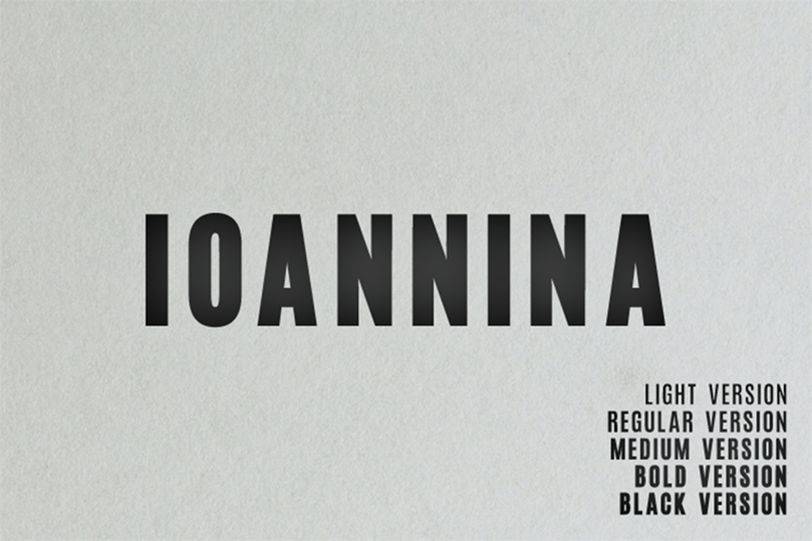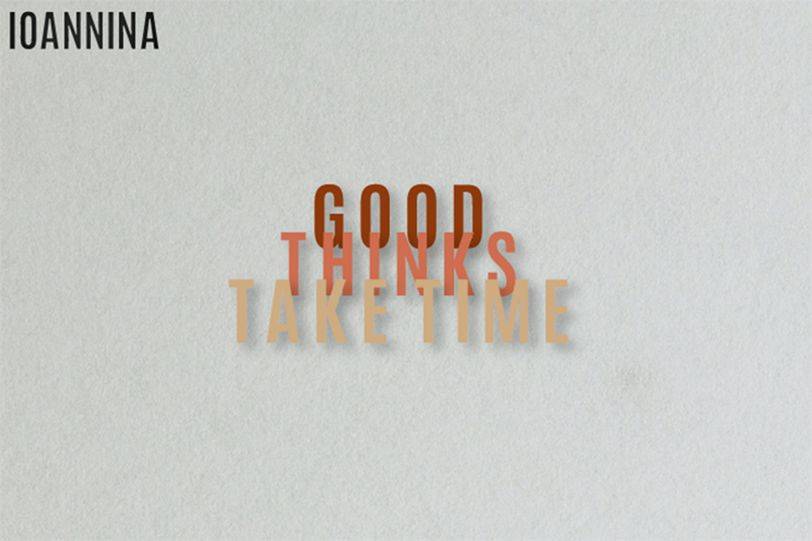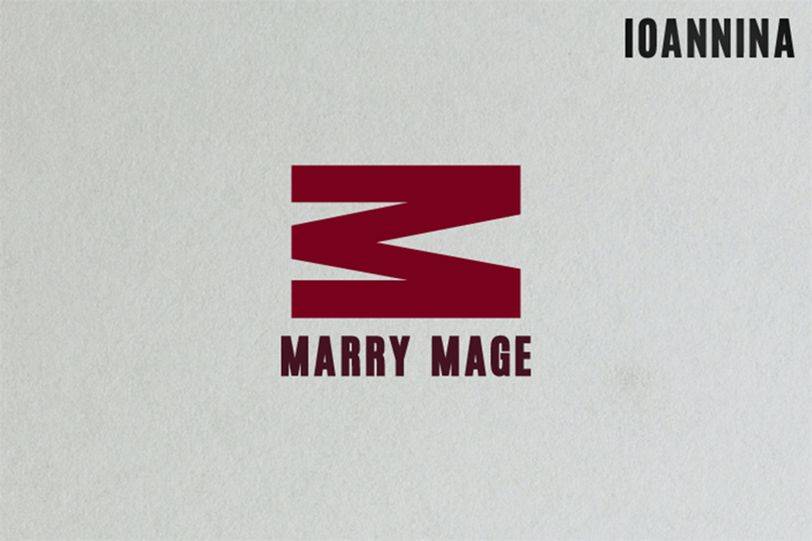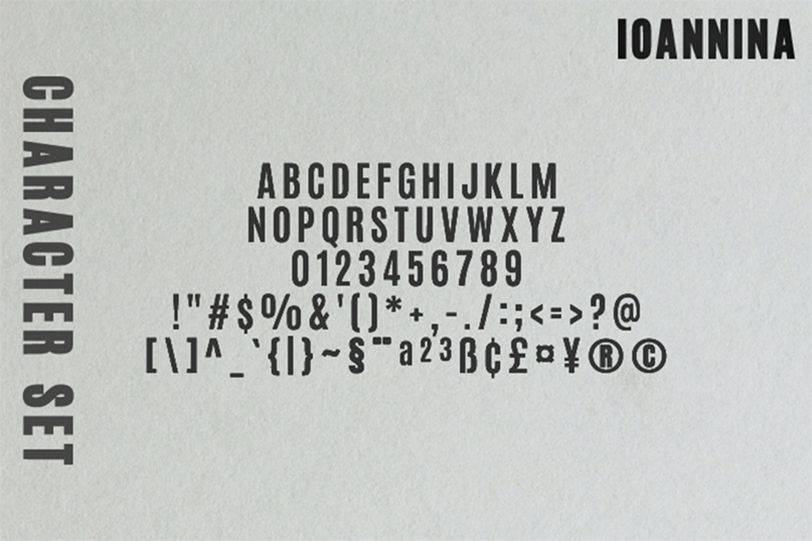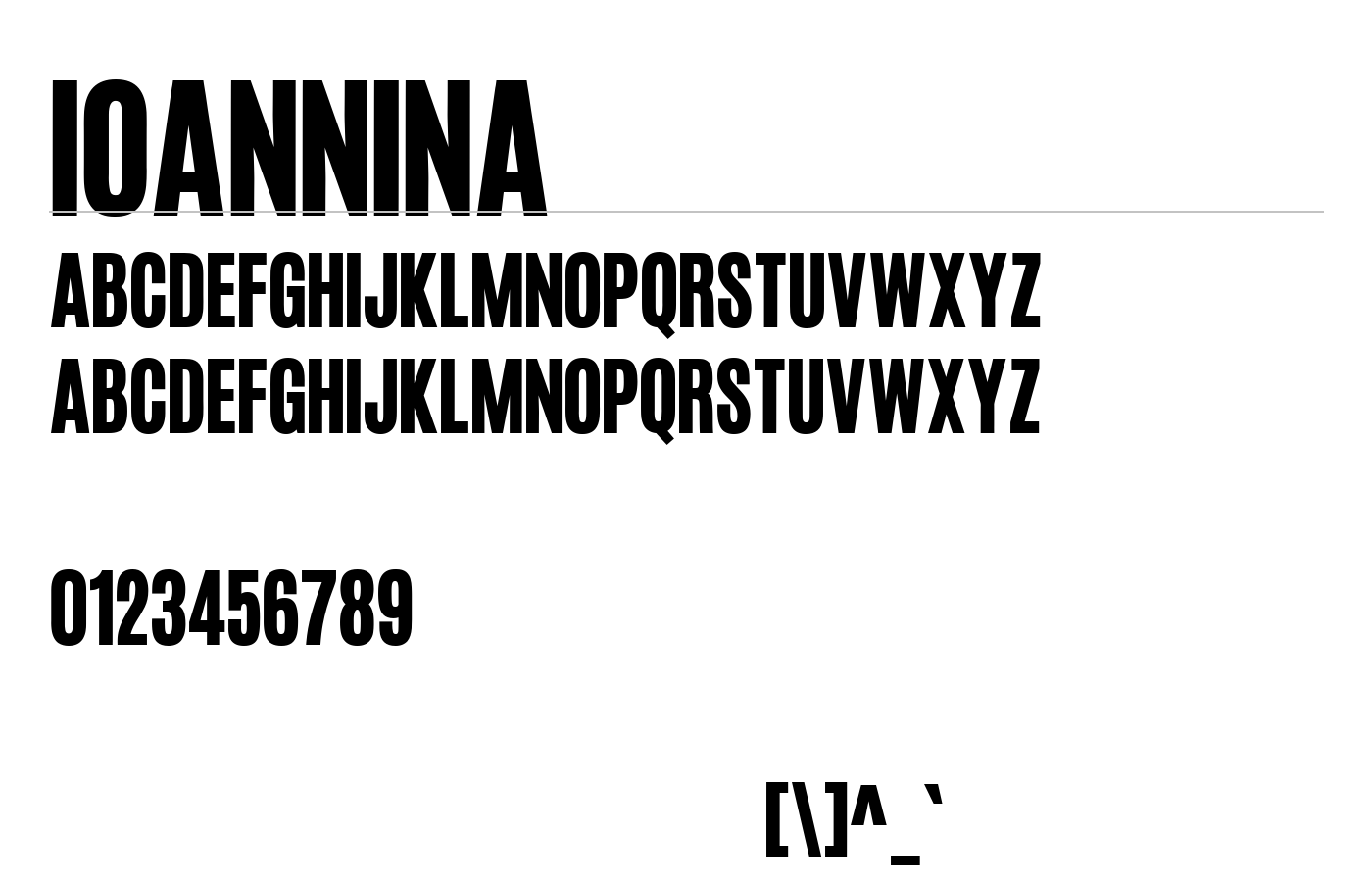
Ioannina is a bold, condensed sans serif font with a strong vertical emphasis and uniform stroke weight, offering a clean and modern feel. Its tall, narrow letterforms and tight spacing make it ideal for impactful headlines and branding where commanding attention is key. This font works well in editorial, posters, and logo design, providing a confident, straightforward style with excellent readability at large sizes.
Ioannina Font
About Ioannina Font
| Font family | Ioannina Font |
| Designer | Naya |